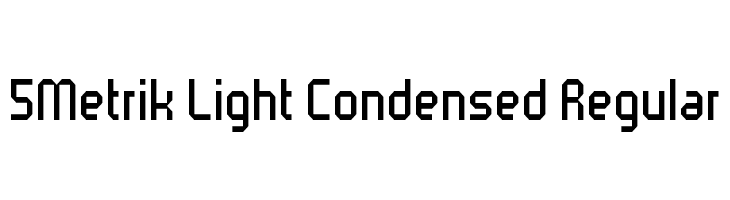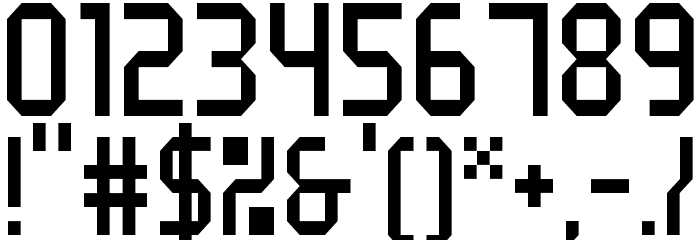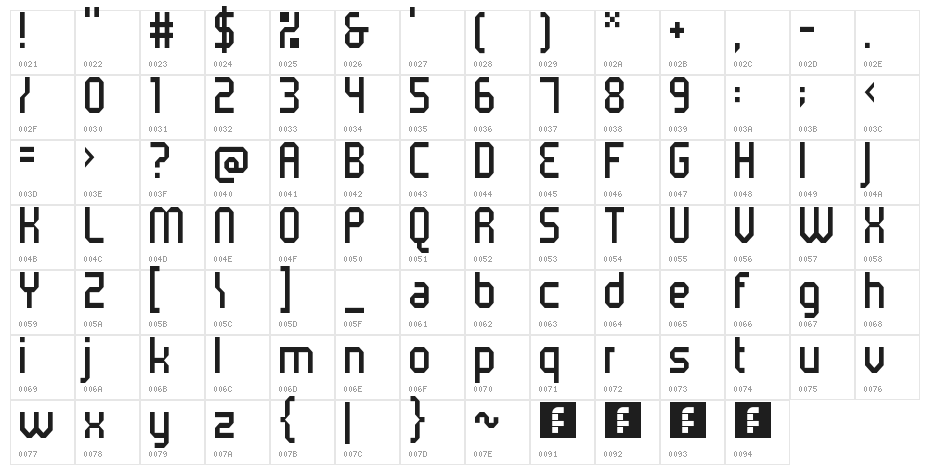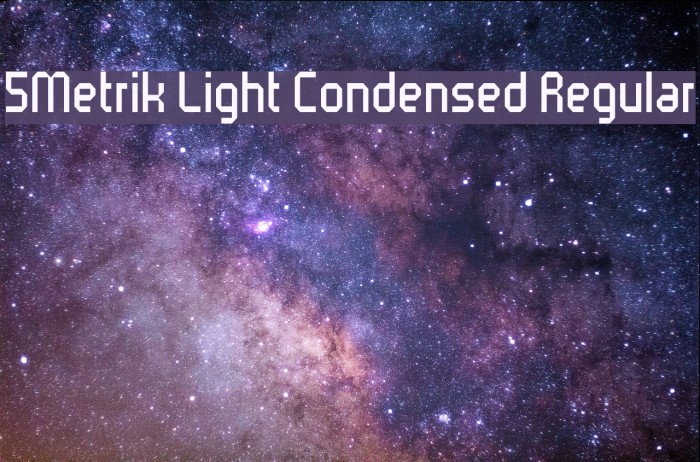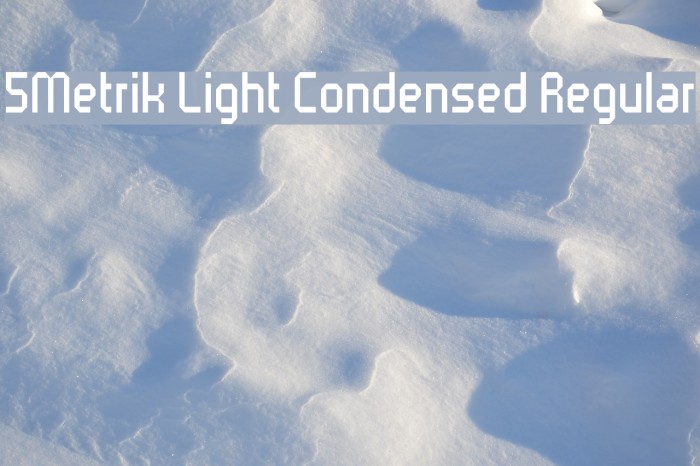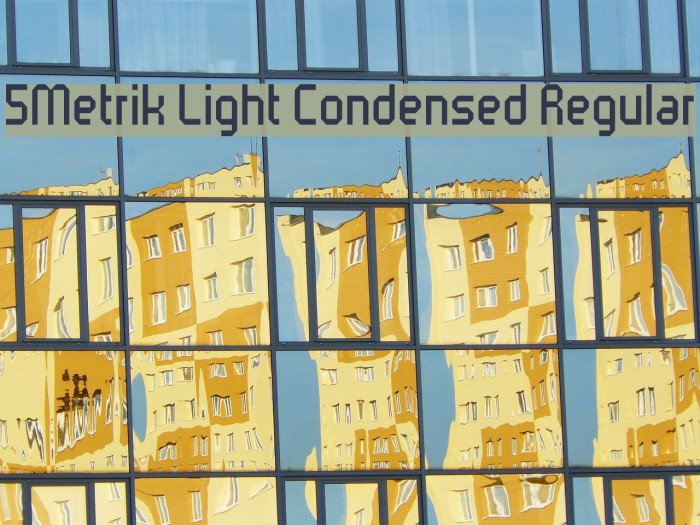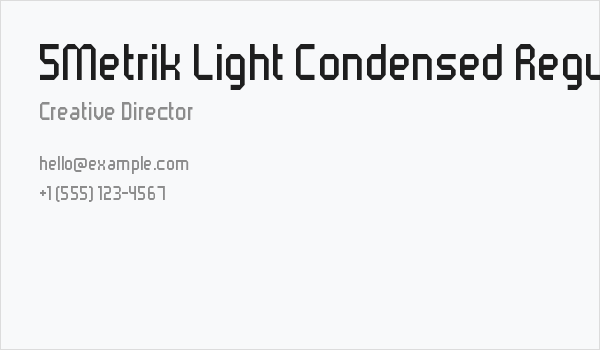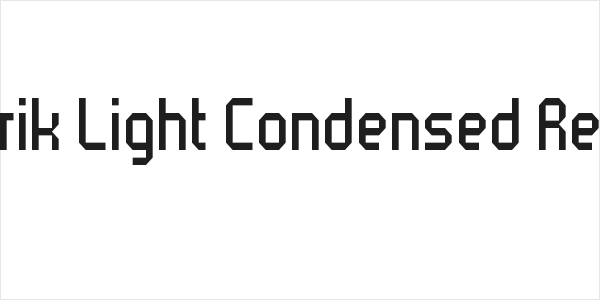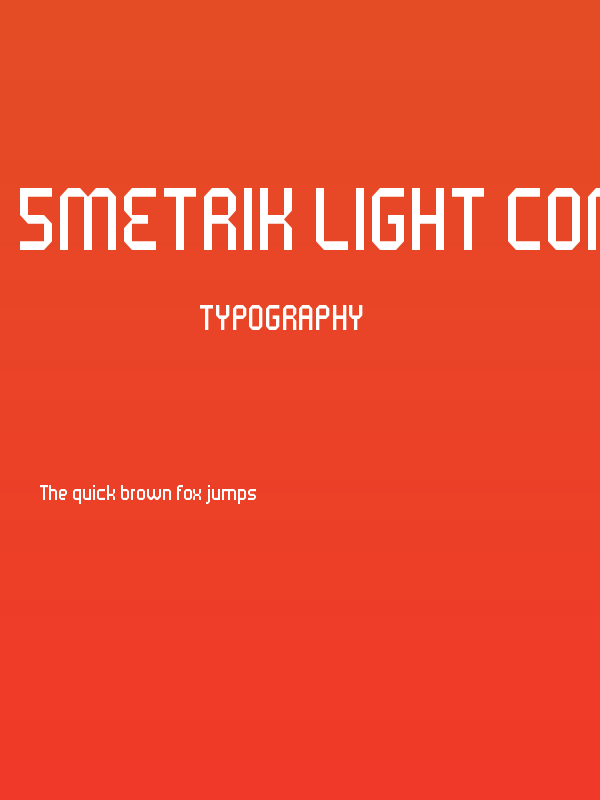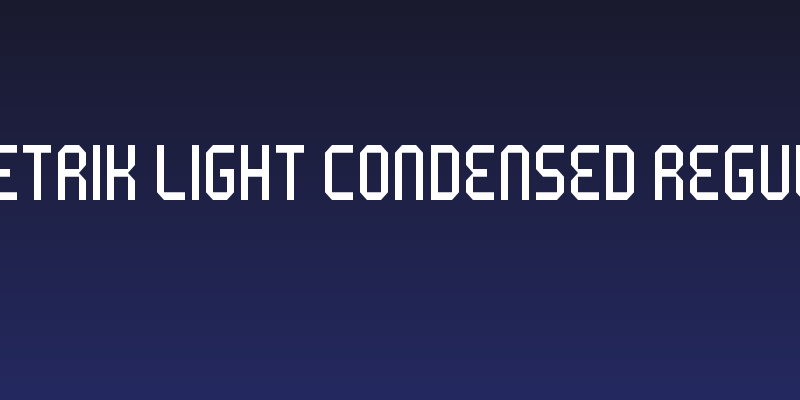
5Metrik Light Condensed Regular Font
5Metrik Light Condensed Regular Description
This font features a geometric and structured design, characterized by its angular and precise letterforms. The uppercase and lowercase letters maintain a consistent height, contributing to a uniform appearance. The font's condensed nature allows for efficient use of space, making it suitable for headlines and titles where space is limited. The numerals and special characters follow the same geometric style, ensuring a cohesive look across all characters. The overall design is modern and minimalistic, with a focus on clarity and readability.
| Proposed Projects | Ideal for modern branding projects, tech-related designs, and minimalist posters. |